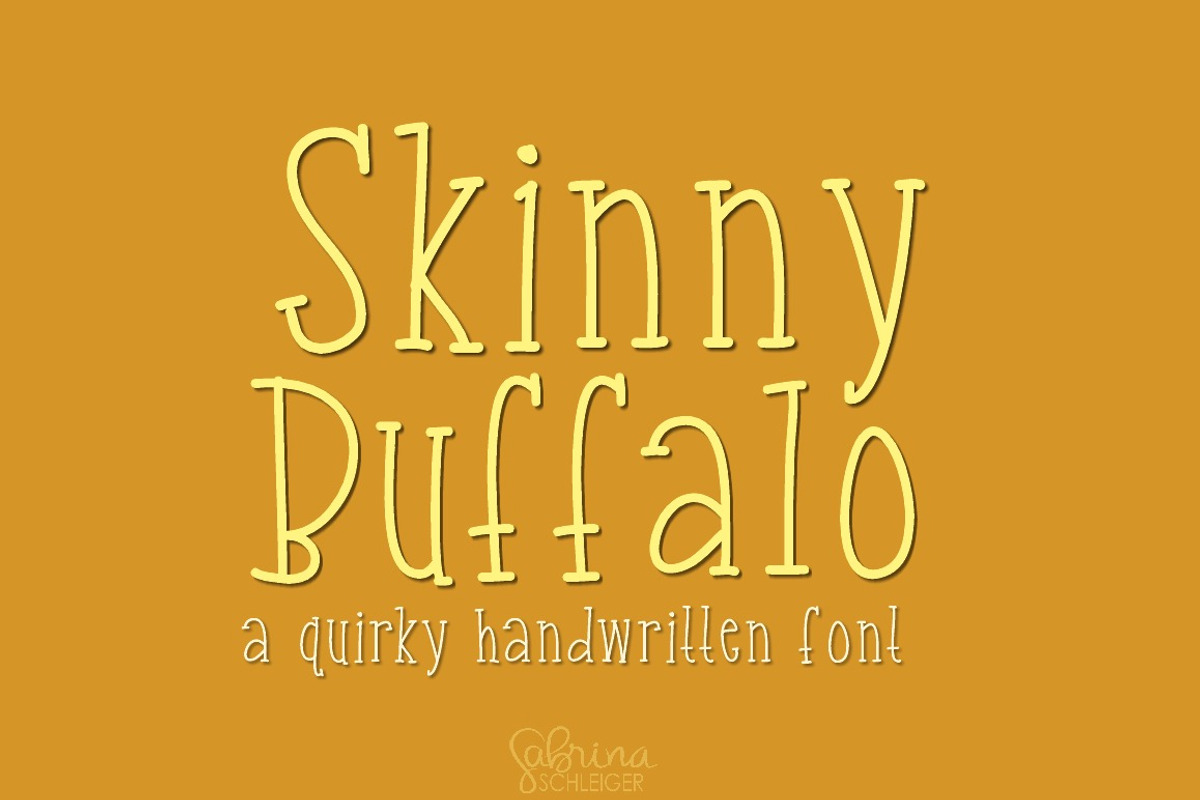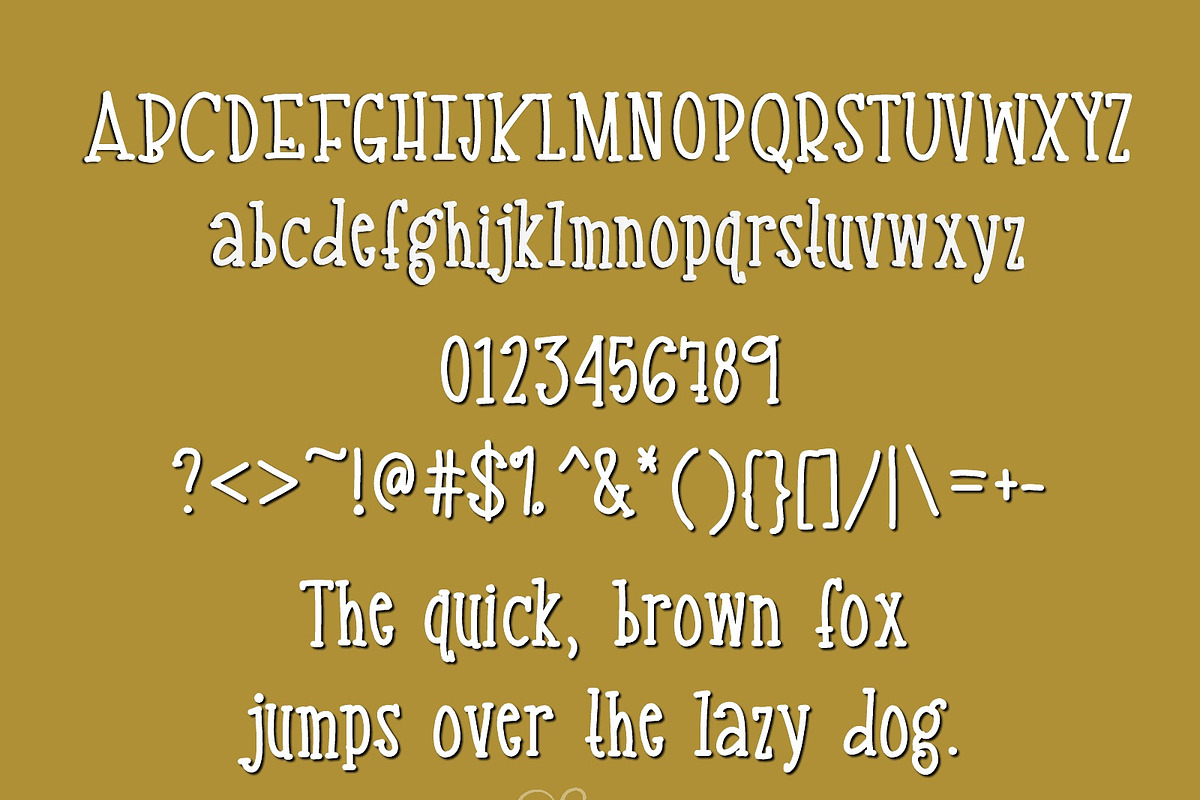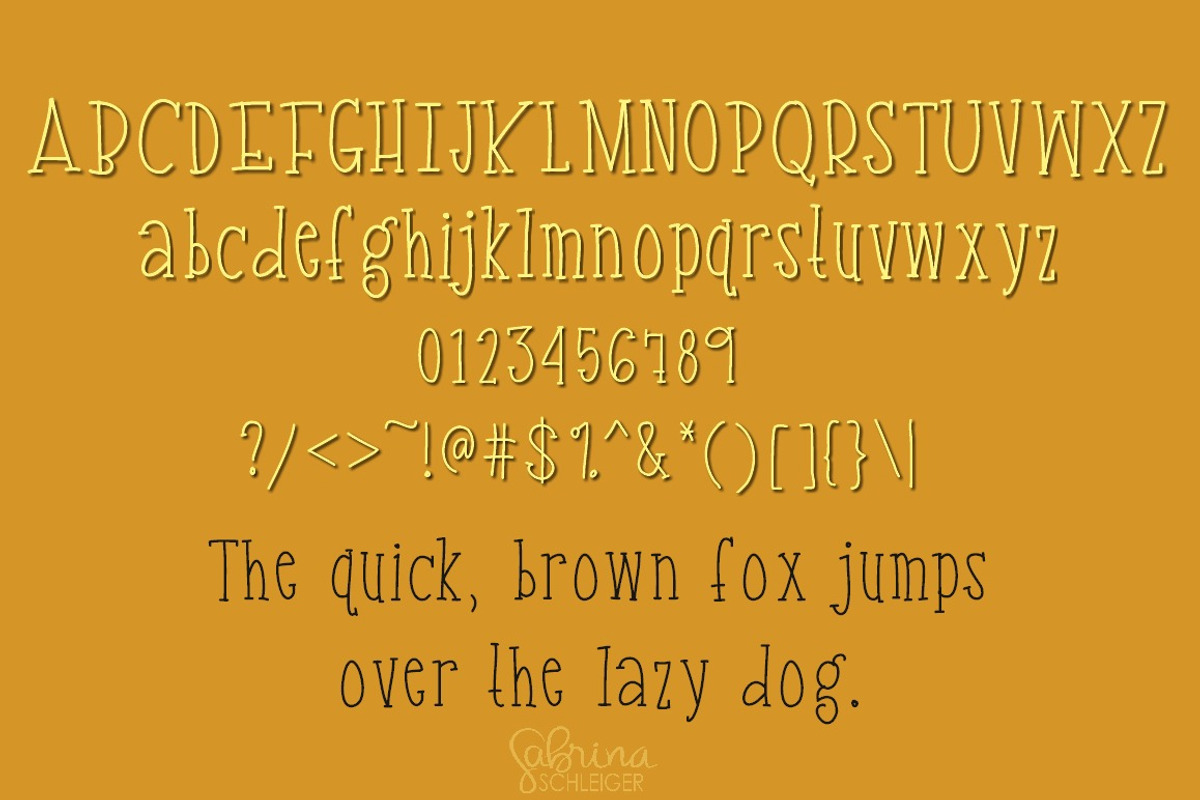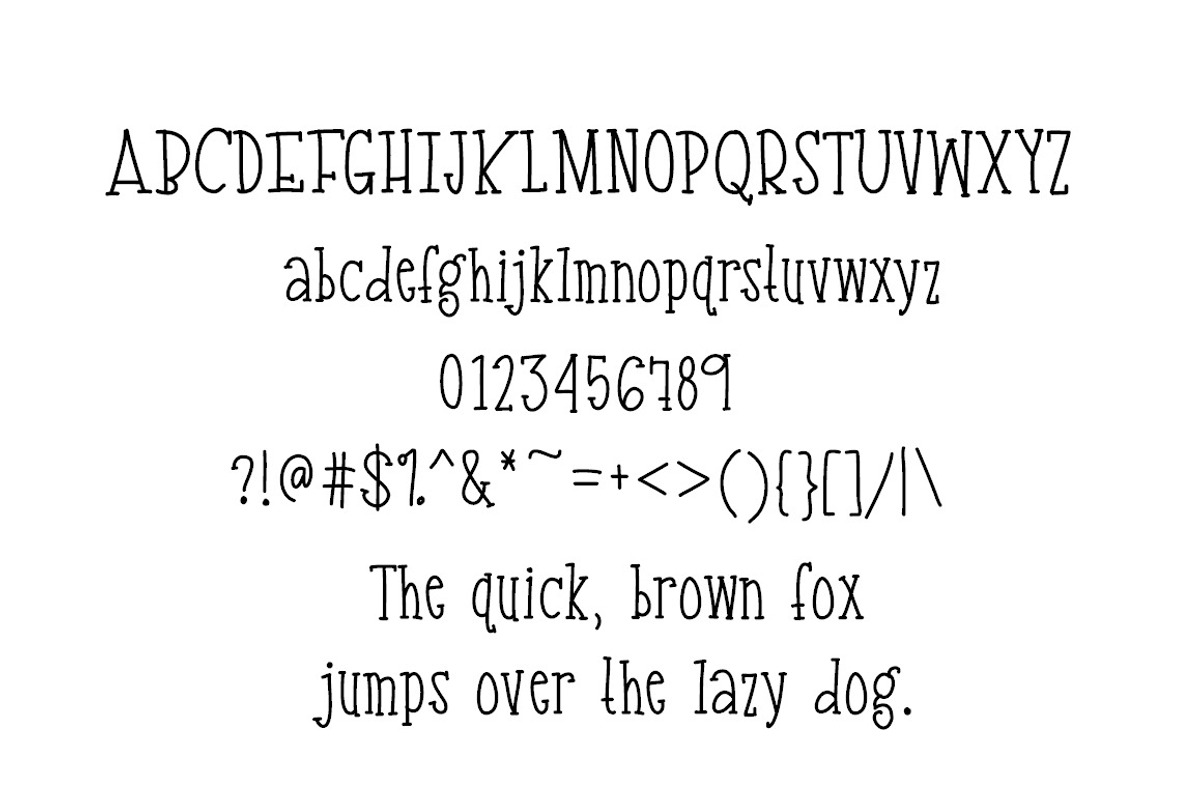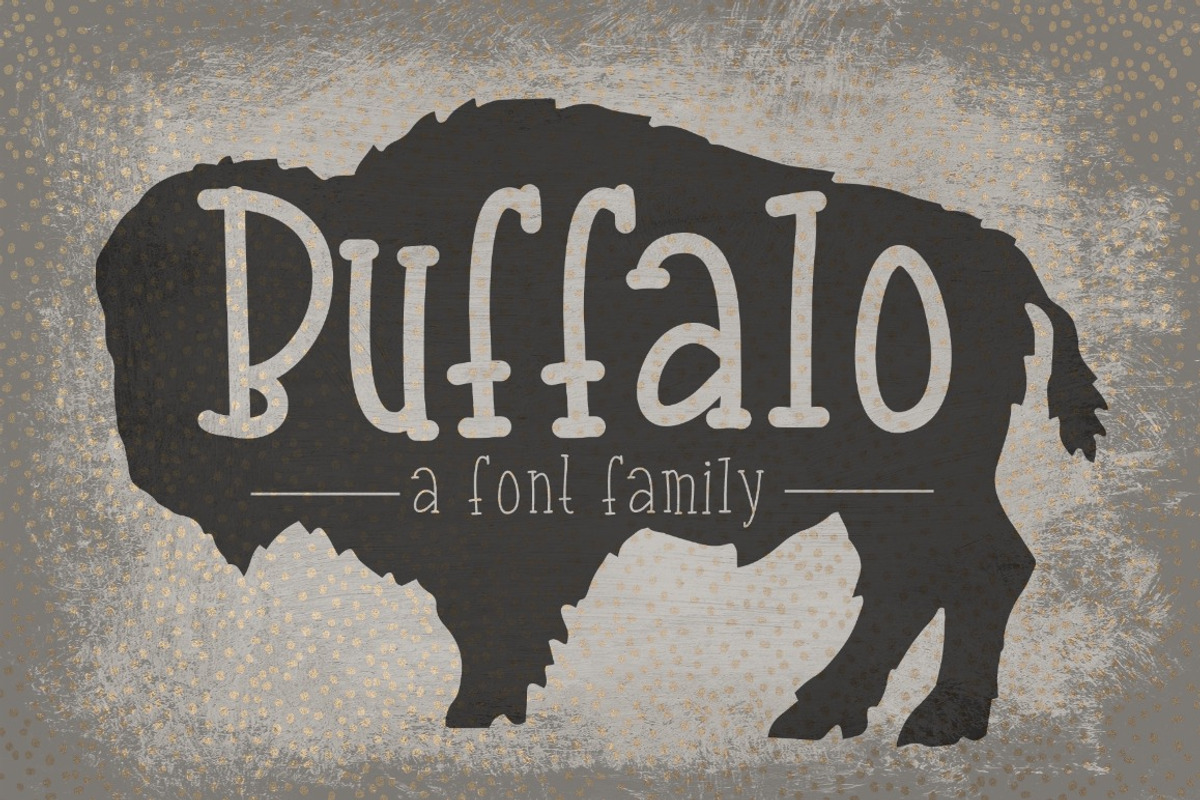
Buffalo- Font Family
Buffalo- Font Family by Sabrina Schleiger Design is a font selected for branding, posters, packaging, typography.
Why Buffalo- Font Family is worth a look
Buffalo- Font Family by Sabrina Schleiger Design fits naturally into Branding, posters, packaging, typography.